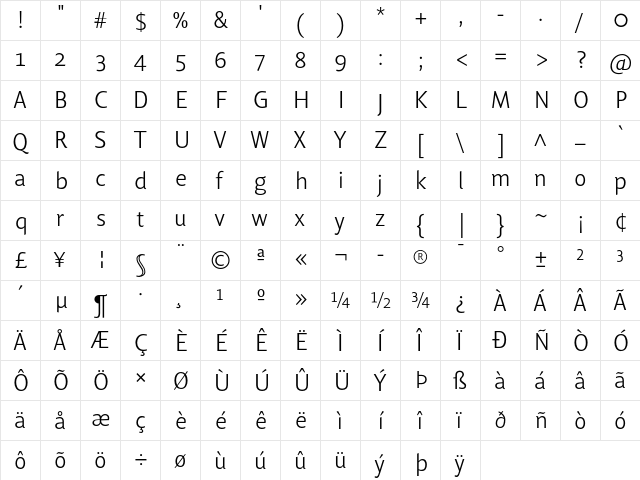
Lisboa OSF Light Regular
Design Context for Lisboa OSF Light Typeface
Lisboa OSF Light is a composed and adaptable typeface that performs quietly and consistently across a wide range of design contexts. The delicate stroke weight brings airiness and refinement to layouts.